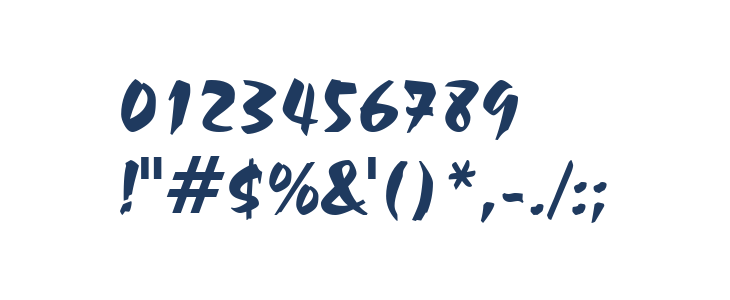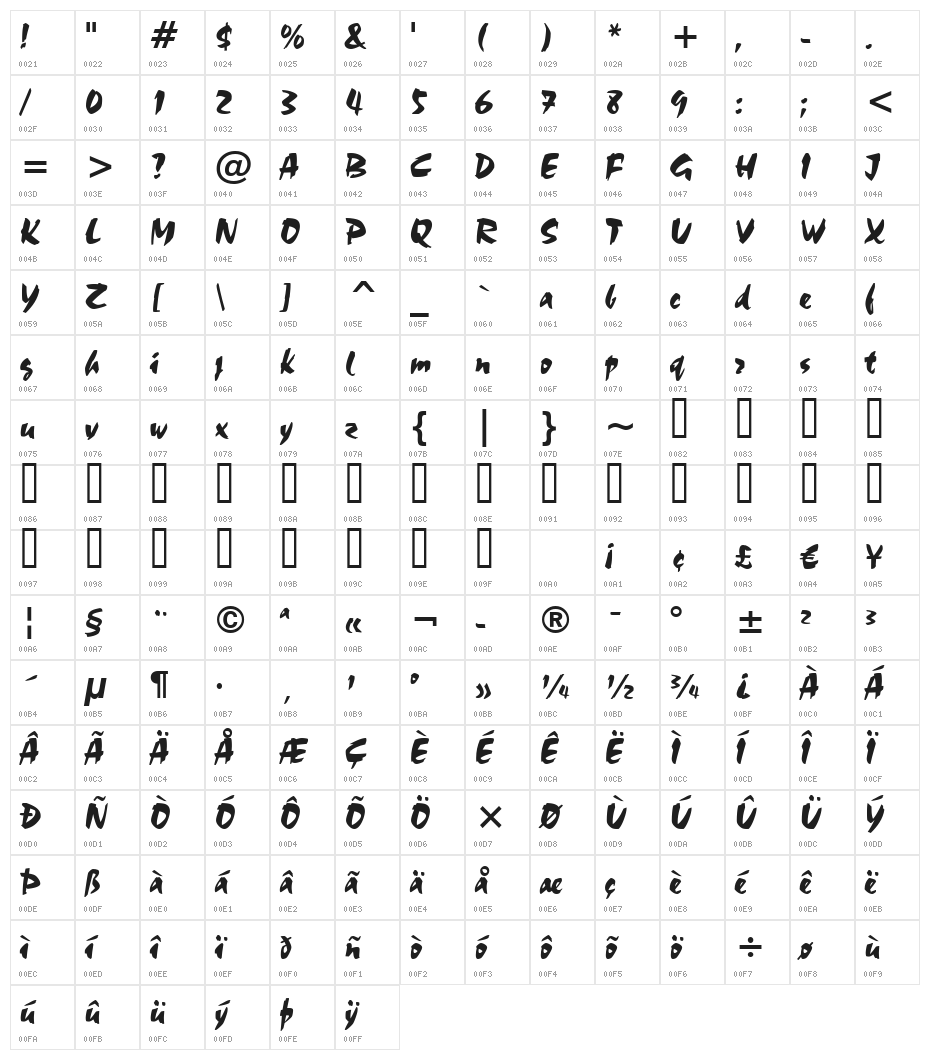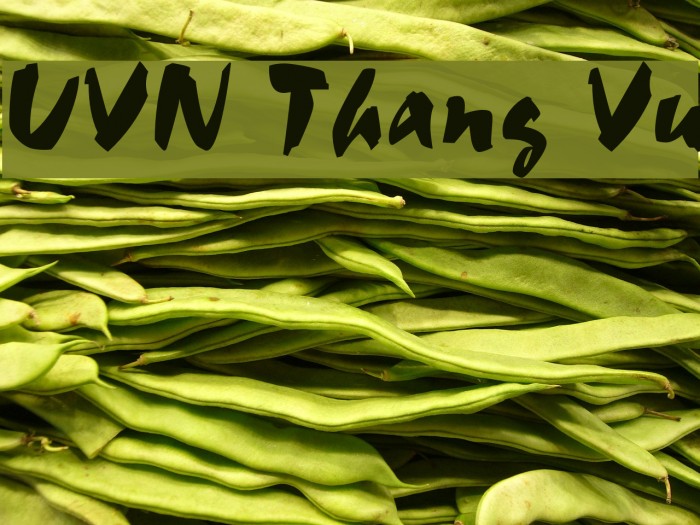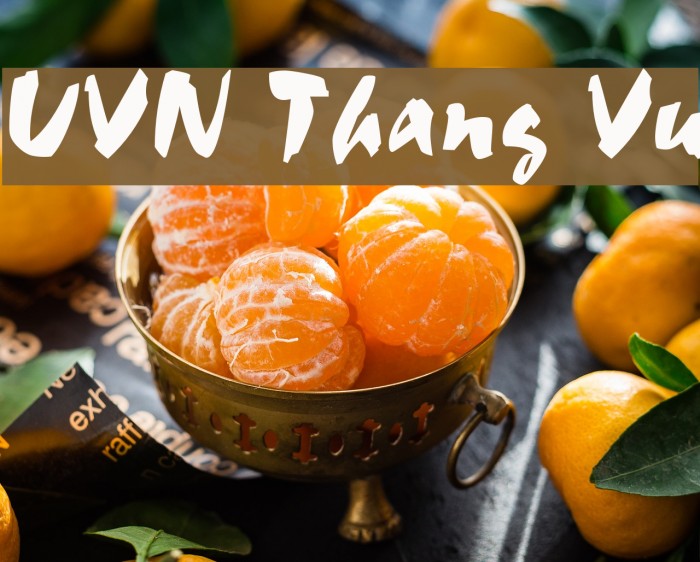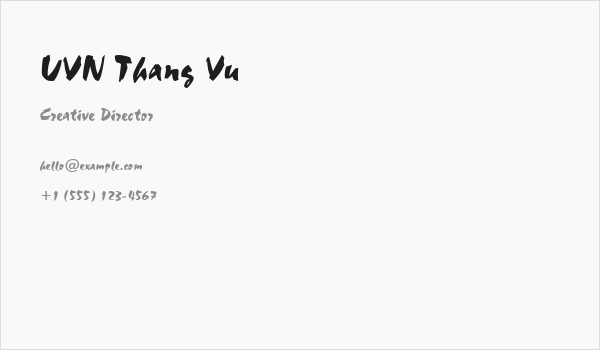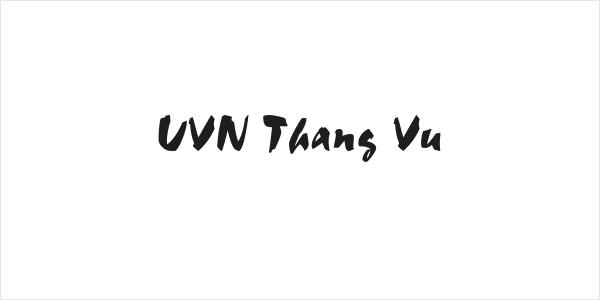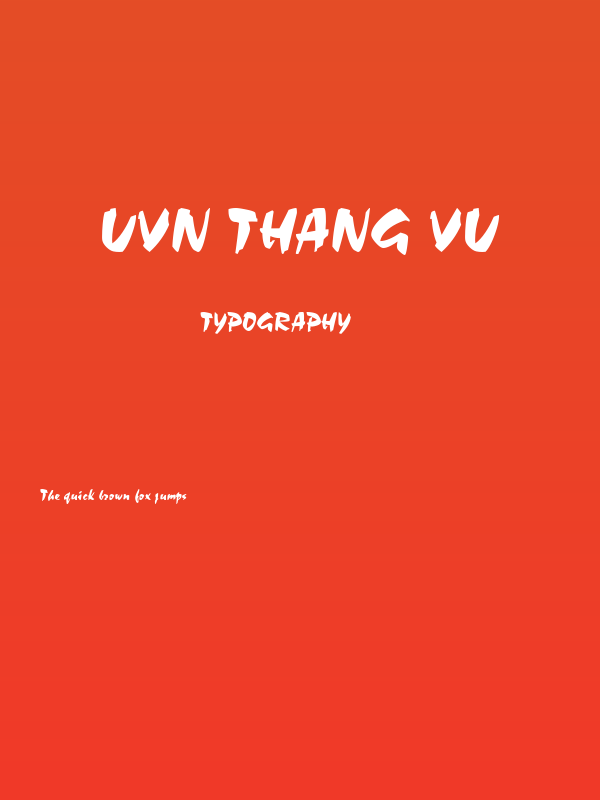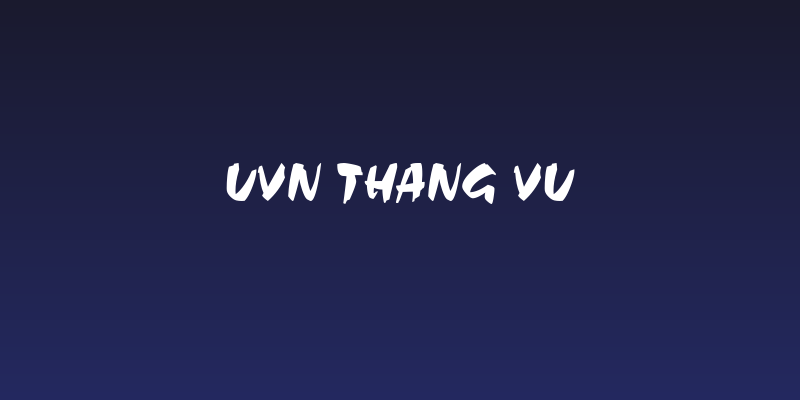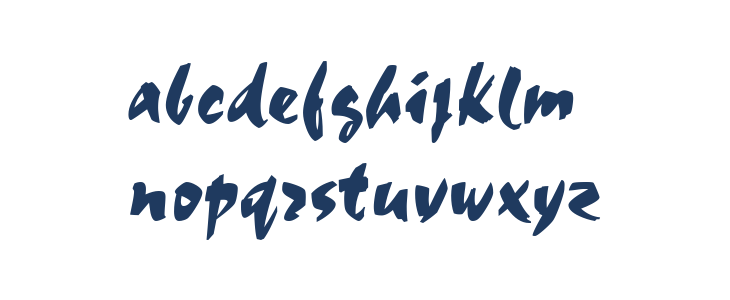
UVN Thang Vu Font
UVN Thang Vu Description
This font features a bold and dynamic brush script style, characterized by its thick, sweeping strokes and energetic appearance. The letters are crafted with a sense of movement and flair, giving it a lively and expressive quality. Each character is distinct, with varying stroke widths that add to its handcrafted feel. The uppercase letters are bold and commanding, while the lowercase letters maintain a consistent flow, enhancing readability. The numerals and special characters are equally bold, maintaining the overall aesthetic. This font is ideal for projects that require a personal touch or a sense of creativity and spontaneity.